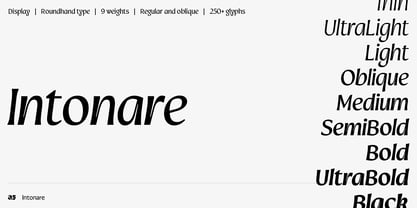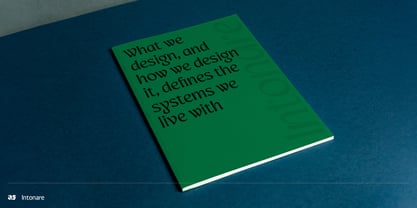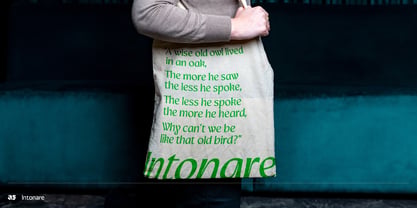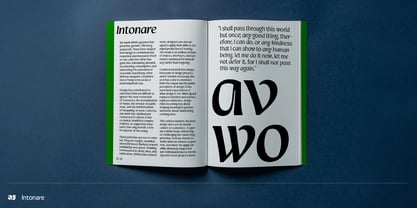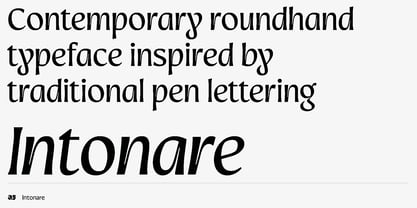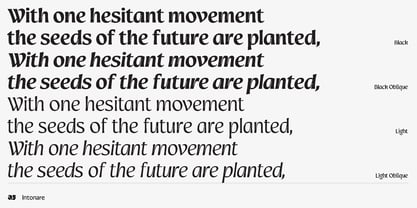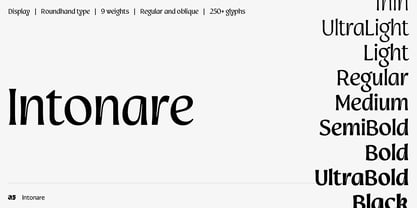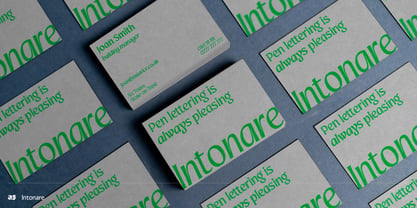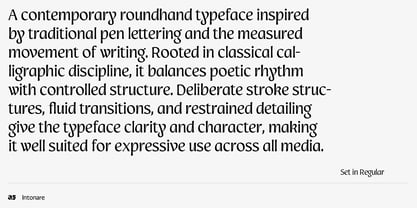
Die Schriftfamilie Intonare wurde von Alister Shapley entworfen und von Applied Systems Design Studio veröffentlicht. Intonare enthält 18 Stile und Familienpaketoptionen. Mehr über diese Familie
Intonare is a contemporary roundhand typeface inspired by traditional pen lettering and the measured movement of the round hand pen. Rooted in classical calligraphic discipline, it reinterprets historical writing practices through a modern typographic system designed for expressive, practical use. The typeface balances poetic rhythm with controlled structure, allowing decoration to emerge through motion rather than excess. Its letterforms are shaped by deliberate stroke structures, fluid transitions, and restrained detailing, resulting in a script that feels both expressive and composed. Designed primarily as a display face and for use within modern brand systems, Intonare offers clarity, consistency, and character across print and digital applications. By translating cadence and intonation into form, Intonare gives written language a sense of timing, movement, and voice.
Designer: Alister Shapley
Foundry: Applied Systems Design Studio
Intonare